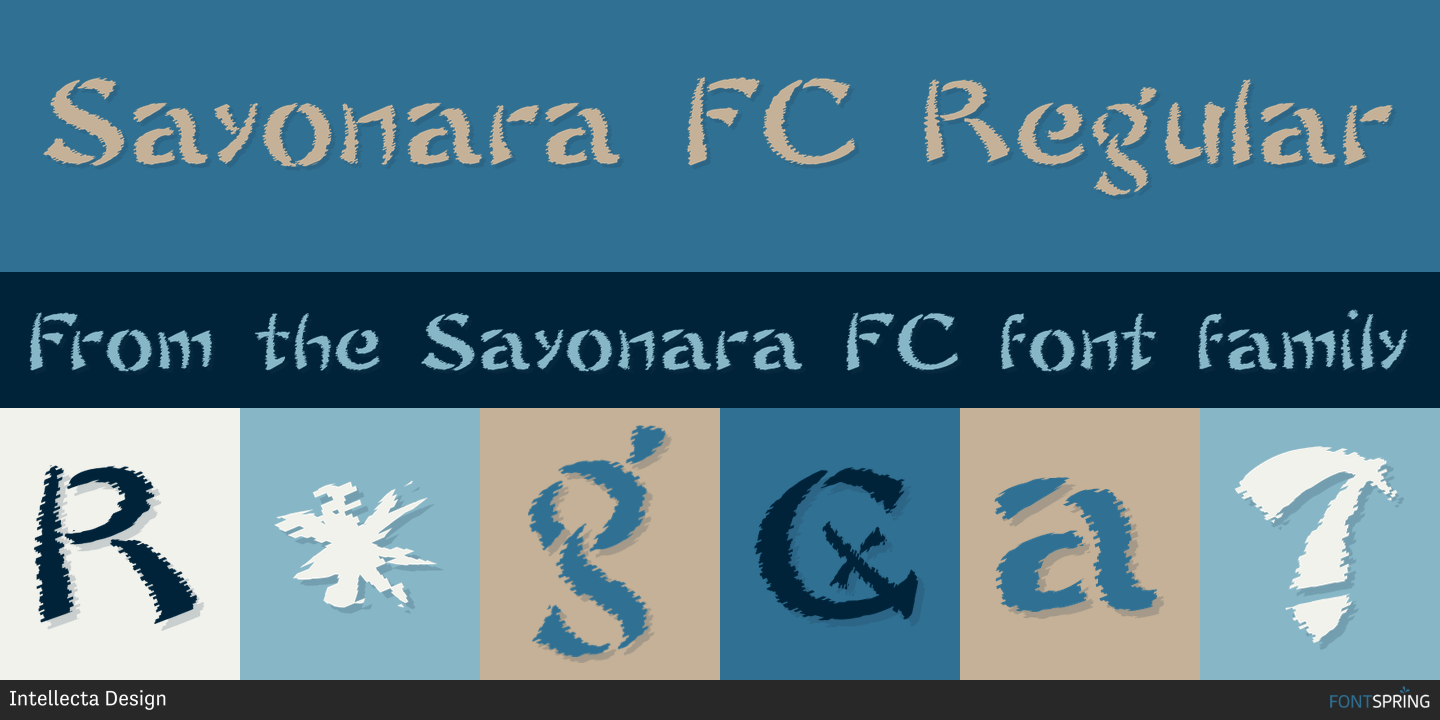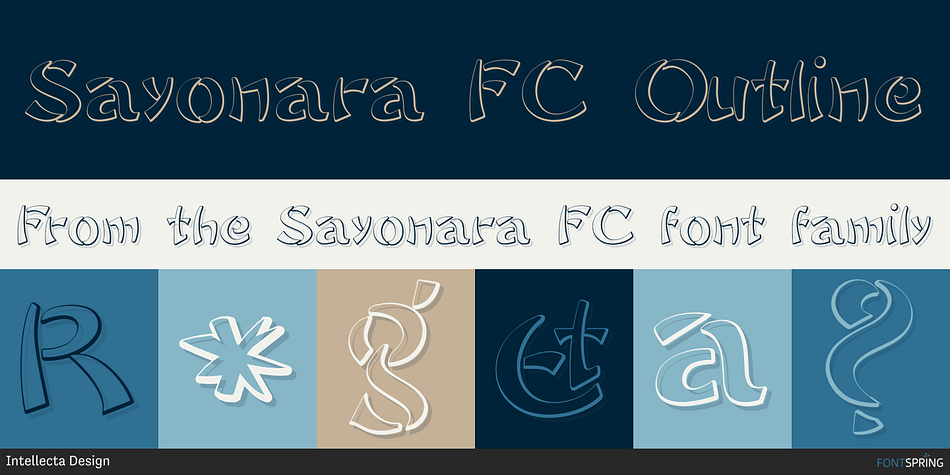
Sayonara FC
Designed by Paulo W, Sayonara FC is an exotic font family. This typeface has two styles and was published by Intellecta Design.
Sayonara FC is a beautiful font family, perfect for giving your designs a thematic feel! This set has tons of different styles, and works well in a wide range of creative projects.